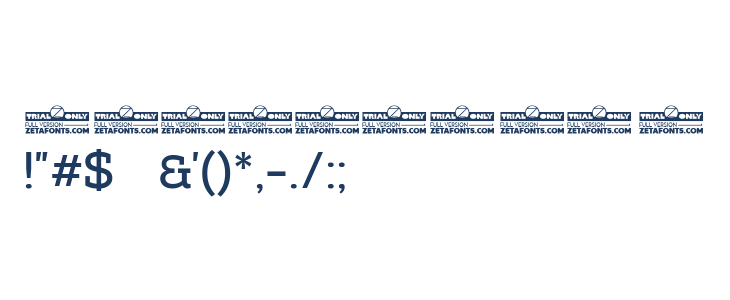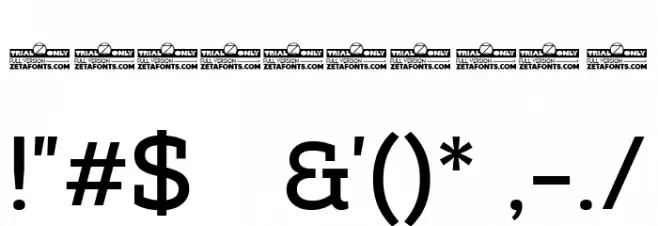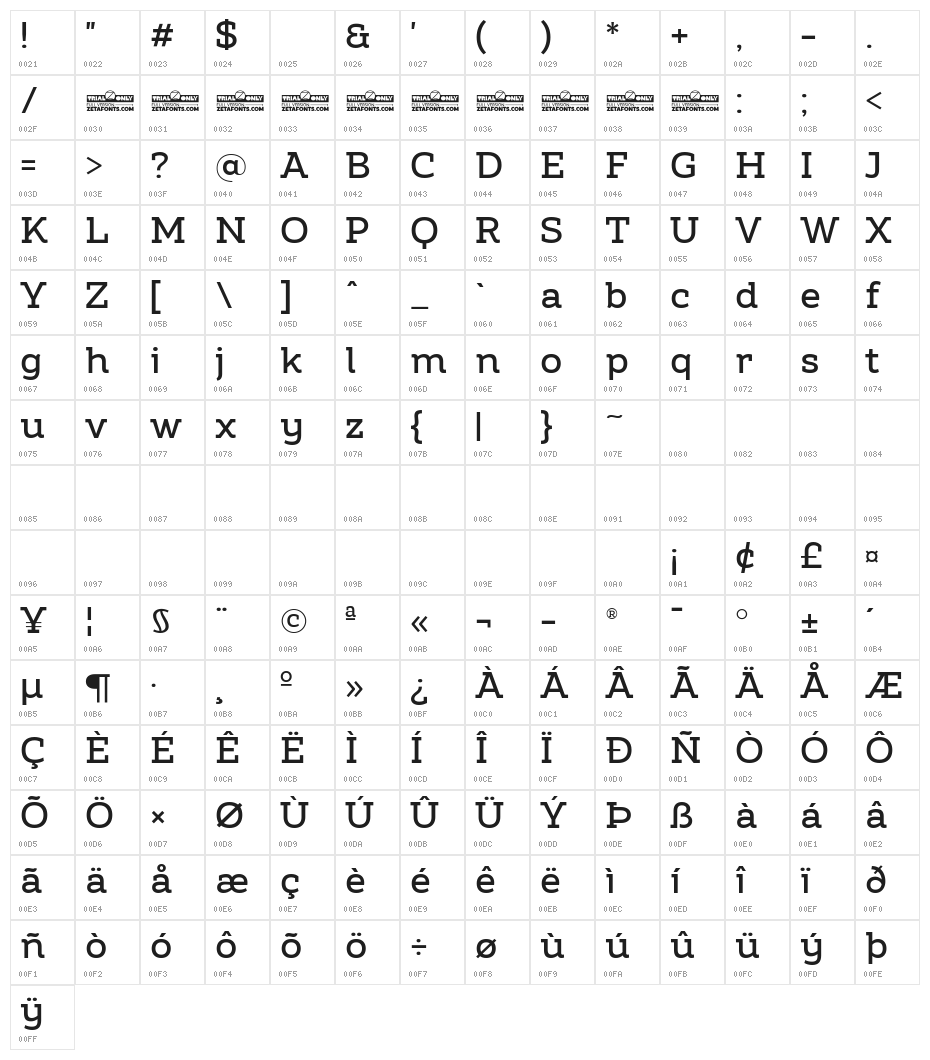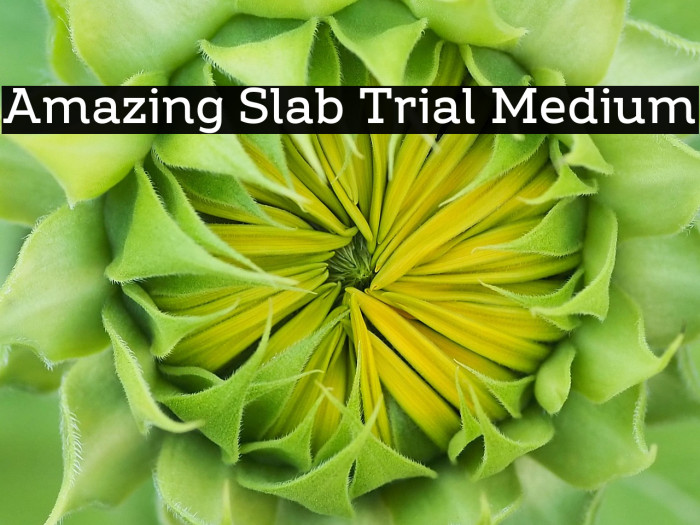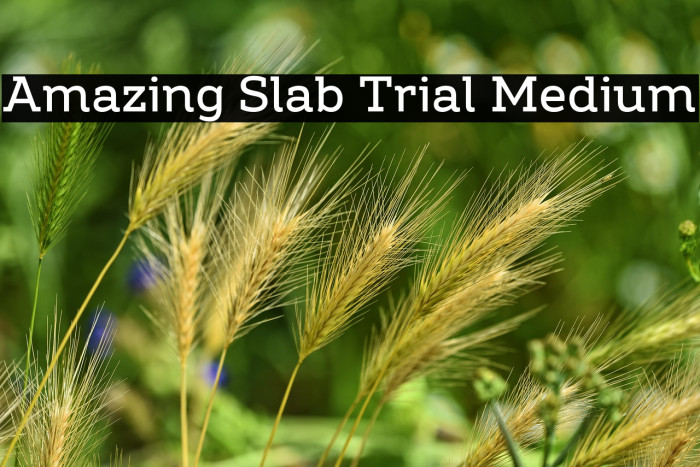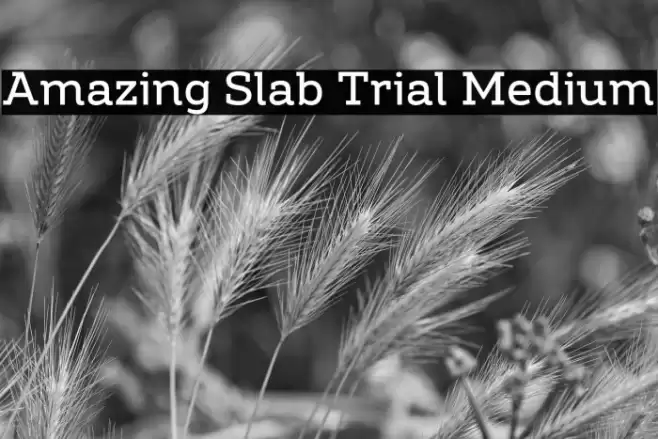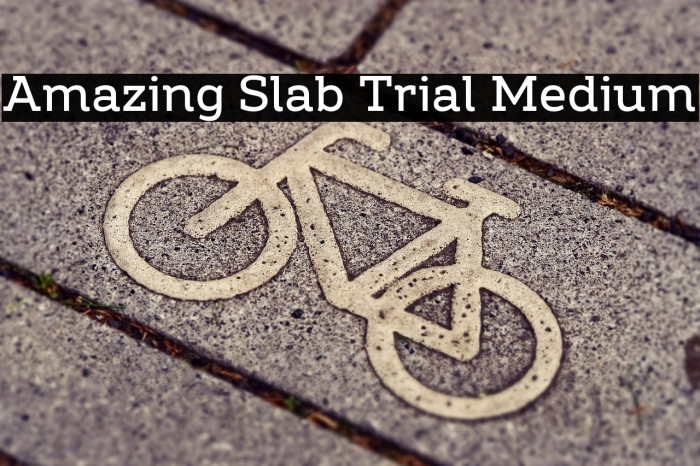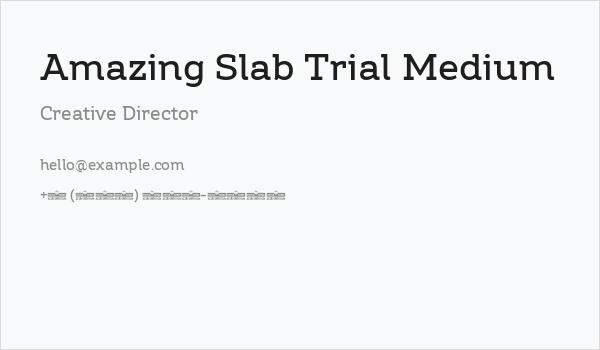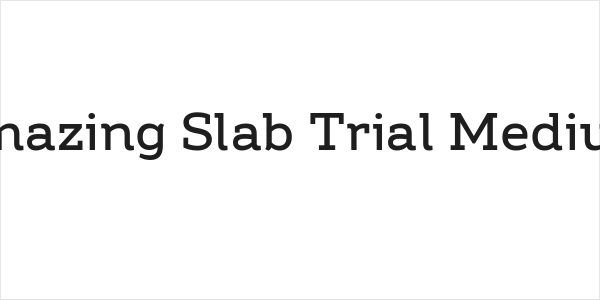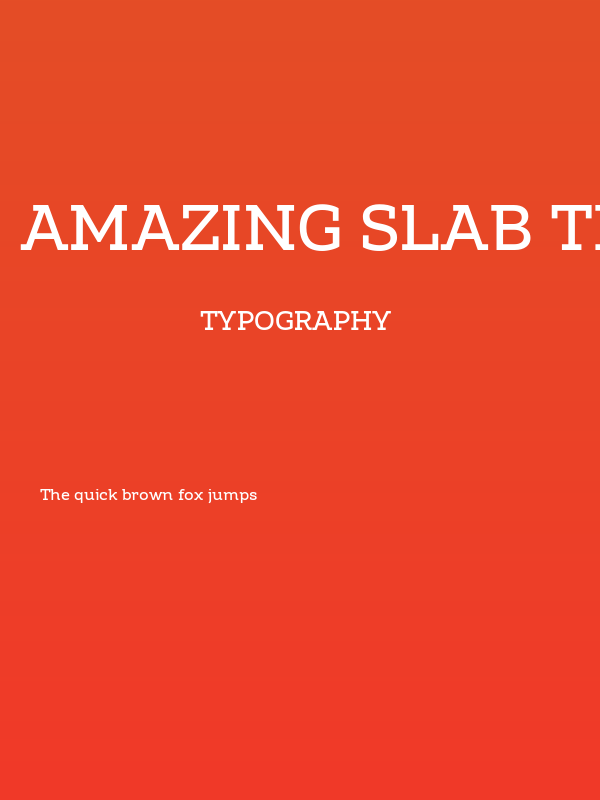
Amazing Slab Trial Medium Font
Amazing Slab Trial Medium Description
This font features a robust and sturdy design with thick, consistent strokes that embody the classic slab serif style. The characters are well-defined with a strong presence, making them highly legible. The uppercase letters are bold and commanding, while the lowercase letters maintain a harmonious balance with slightly rounded edges. The numerals are clear and straightforward, ensuring readability. Special characters are designed with the same attention to detail, providing a cohesive look across all glyphs. This font's medium weight offers a perfect balance between boldness and subtlety, making it versatile for various applications.
| Proposed Projects | Ideal for branding, headlines, posters, and any project requiring a strong, authoritative typeface. |